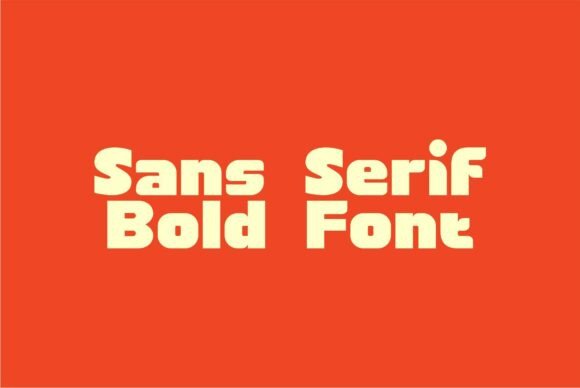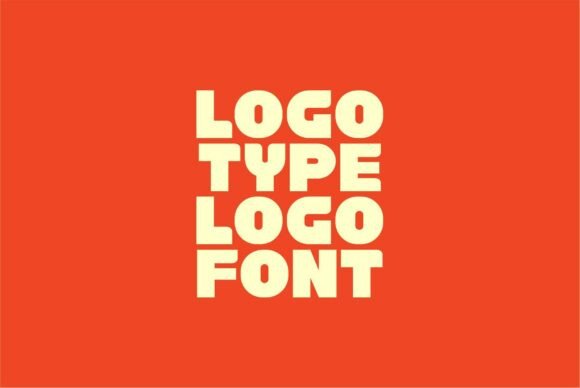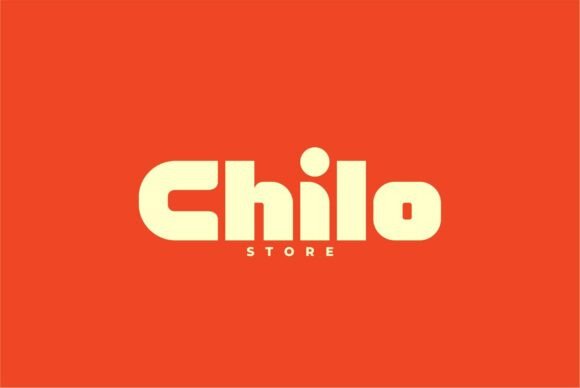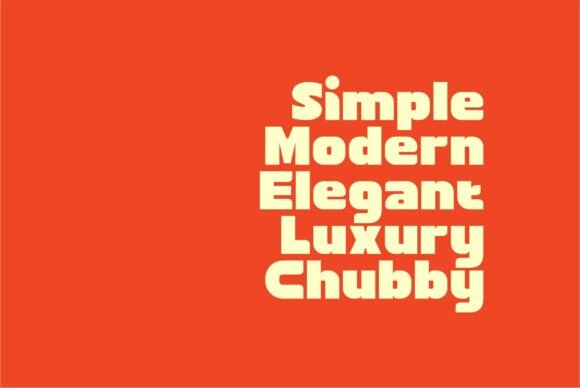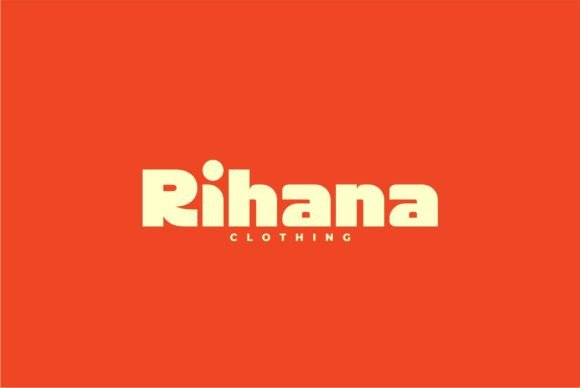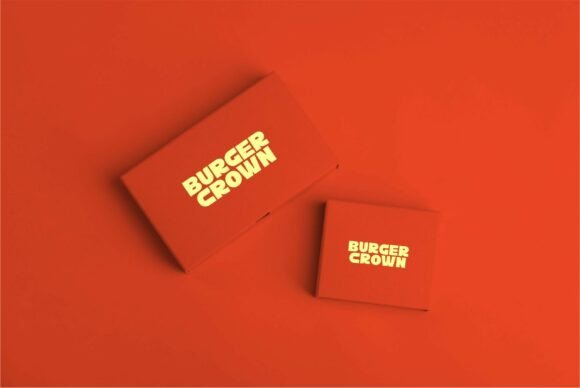
Reinventing the Visual Identity of Modern Brands
Have you ever stared at a blank canvas, wondering what font would bring your brand to life? The search for the perfect typeface can be a daunting task, but what if I told you there’s a font that embodies the essence of modern design? The Kilon Font is a game-changer for designers, offering a striking sans-serif bold font that’s specifically crafted for the modern logotype.
This geometric masterpiece is a study in perfection, featuring ultra-thick weights and tightly curved counters that create a sense of solidity and warmth. The Kilon Font is the ultimate tool for corporate branding, tech startups, and minimalist packaging, providing a confident aesthetic that strips away the unnecessary.
Kilon Font Key Features
- Unique Characteristic: The font features a distinctive blend of modern and elegant elements, making it perfect for creating visually appealing designs in various industries.
Kilon Font Review
Kilon Font is a modern sans-serif font that I had the chance to work with. Overall, I was quite impressed with its potential. ✨
- Unique Line Width: Kilon Font’s line width is quite unique and adds a touch of sophistication to the design. ✨
- Legibility: The font is highly legible, making it perfect for body text. ✨
- Variety of Styles: Kilon Font comes in a range of styles, including light, regular, and bold, giving designers a lot of flexibility. ✨
- Lack of Consistency: Some characters in the font may appear slightly inconsistent, which could affect the overall design. ⚠️
Overall, Kilon Font is a solid choice for designers looking for a modern sans-serif font. While it has some limitations, its unique line width and high legibility make it worth considering. With some tweaks and adjustments, Kilon Font has the potential to become a staple in many designers’ toolkits.
Tips for Getting the Most Out of Kilon Font
For best results, use Kilon Font for headings and titles. It’s also great for creating a unique and modern look in your designs.
Kilon Font is perfect for:
– Modern branding and logos
– Creative resumes and portfolios
– Digital invitations and social media graphics
– Any project where a unique and modern look is desired
Alternatives to Kilon Font
Montserrat is a modern sans-serif font designed by Julieta Ulanovsky. It is perfect for use in digital media, such as websites and mobile apps, where a clean and minimalist aesthetic is desired. Montserrat is more geometric in nature compared to Kilon Font, which has a more rounded feel. Montserrat is ideal for use in headings and titles, as it is highly legible and attention-grabbing.
Open Sans is a clean and modern sans-serif font designed by Steve Matteson. It is highly legible and suitable for use in a wide range of applications, including digital media, print materials, and signage. Open Sans is more rounded in nature compared to Kilon Font, which makes it ideal for use in body text and paragraphs. Open Sans is also highly customizable, making it a popular choice among designers.
Merriweather is a classic serif font designed by Eben Sorkin. It is perfect for use in print materials, such as books and magazines, where a traditional and sophisticated aesthetic is desired. Merriweather is more traditional in nature compared to Kilon Font, which has a more modern feel. Merriweather is ideal for use in body text and paragraphs, as it is highly legible and easy to read.